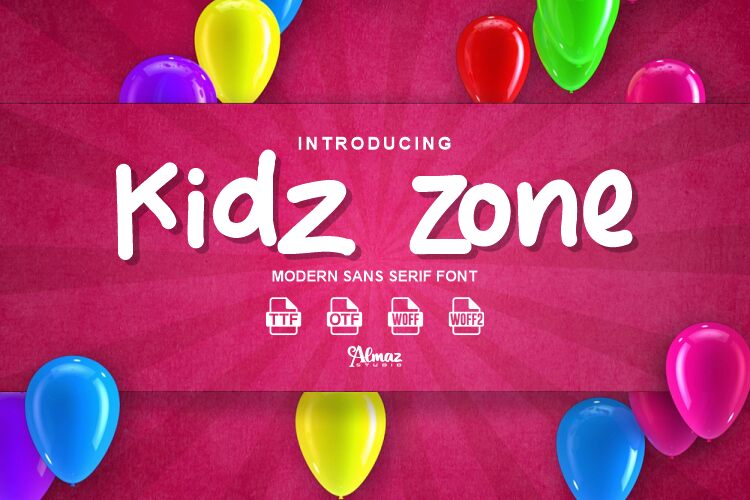
Kidz Zone, the playful creation by Almaz Studio, is a delightful handwritten font that embodies modernity with a touch of cuteness. Its whimsical curves and youthful charm make it perfect for projects aimed at capturing the hearts of little ones. From children's books and educational materials to toy packaging and playful logos, this font adds a dash of fun to any design. Embrace the vibrant energy and innocent joy that Kidz Zone brings, as it effortlessly transforms your creations into captivating wonders for kids of all ages.